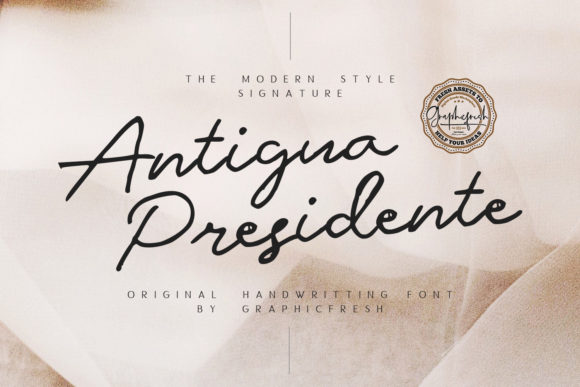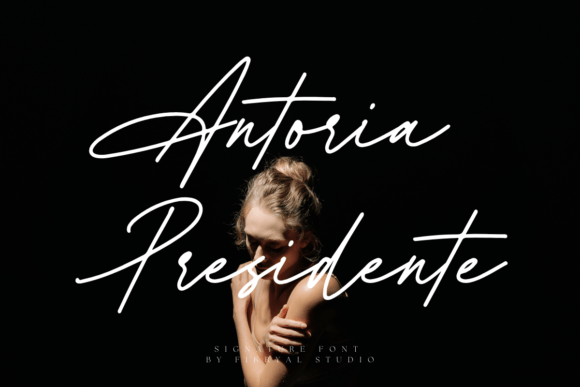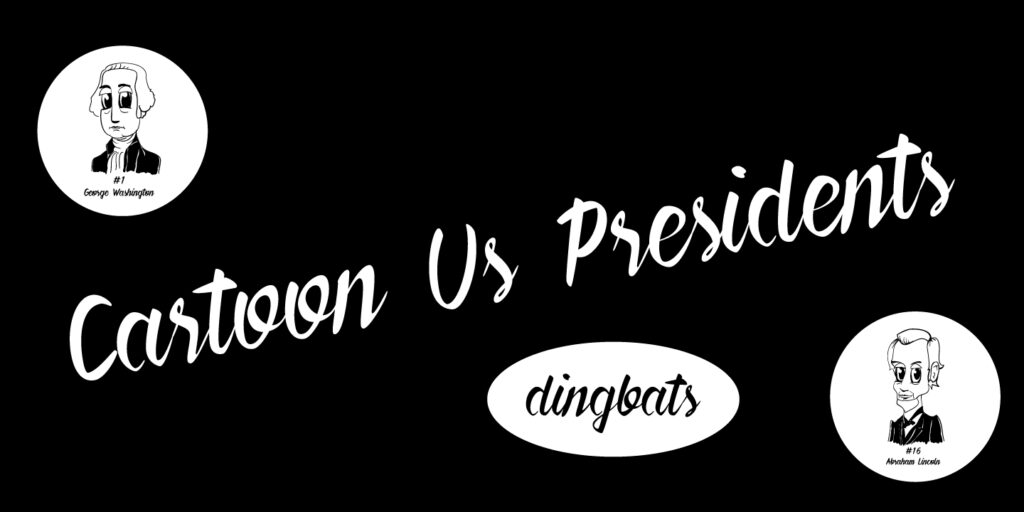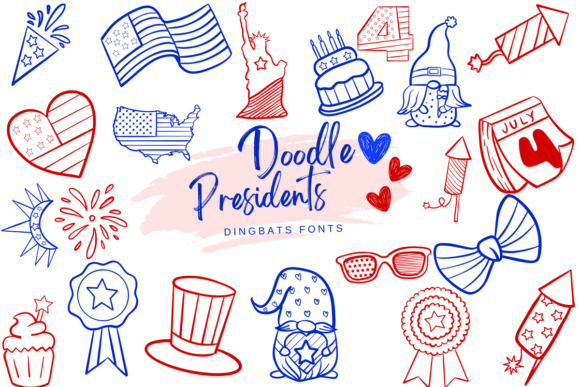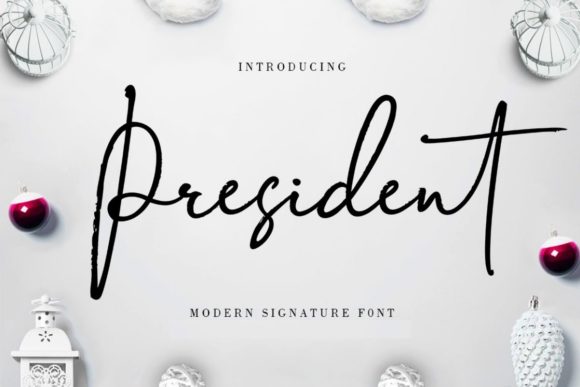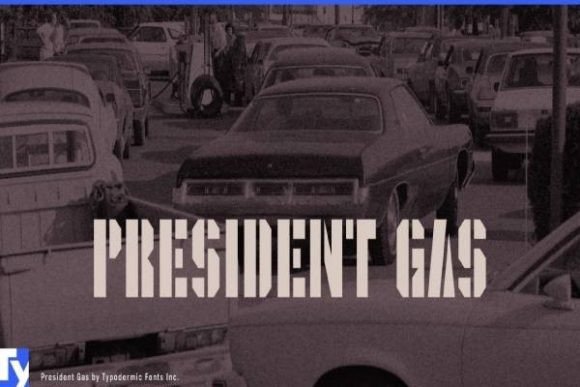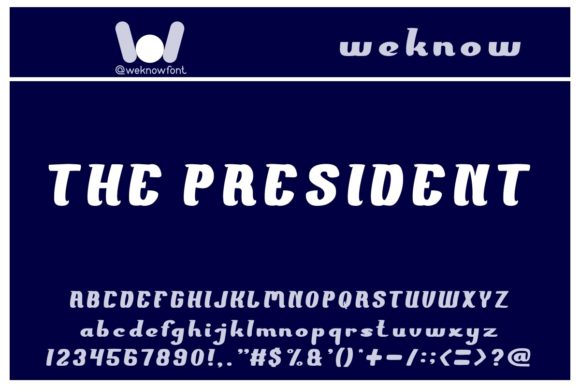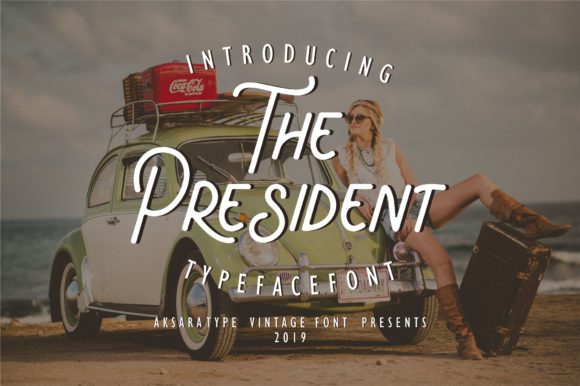
8 presidential fonts for official and business projects
Presidential fonts are used where authority, trust, and visual stability are important. Such representative fonts are suitable for government websites, corporate documents, legal materials, and high-level brand communications. Below are eight fonts that are considered benchmarks for official and business purposes.
Antigua Presidente Font
Antigua Presidente is a beautiful and cheerful handwritten font that exudes genuine charm. Let its delicate aesthetic inspire you to transform any design project into something truly remarkable!
Antoria Presidente Font
Antoria Presidente is a signature font that radiates elegance, sophistication, and class. It’s the ideal choice for any project that needs a touch of luxury, such as high-end fashion branding, marketing materials for luxury hotels, or premium product packaging. Designed to mimic a handwritten signature, the Antoria Presidente font features sweeping curves and delicate strokes that convey a sense of fluidity and movement. Its tall, elongated letters evoke vintage calligraphy, while its clean, modern lines lend a contemporary touch.
President Font
President is a script font that features a variable baseline and delicate lines, providing a classic yet modern touch. This font will add an elegant flair to your designs.
The President Font
The President is a vintage font that offers a clean and straightforward appearance. With excellent readability, it’s ideal for infusing a nostalgic charm into any design.
The President Font
The President is a playful and charming display font that brings a delightful touch to your designs. Incorporate this beautiful font into all your creative projects and see how it makes them truly shine!
Cartoon US Presidents Dingbats Font
This entertaining dingbats font features hand-drawn cartoons of all the US presidents up to the present day. The Cartoon US Presidents Dingbats font is a playful option that can be used for educational purposes or decorative projects.
President Gas Font
President Gas is a robust, octagonal stencil font that boasts an elegant and unique look, making it ideal for a variety of products or crafts.
Doodle Presidents Font
Doodle Presidents is a whimsical dingbat font that showcases adorable, hand-drawn icons inspired by U.S. presidents and symbols of the 4th of July. This font is ideal for infusing a patriotic flair into your projects, featuring fun doodles such as flags, fireworks, and historical figures. It’s perfect for cards, posters, and festive designs!
Presidential fonts and representative fonts play a key role in the visual communication of official and business projects. The right choice of font helps to reinforce a sense of authority, professionalism, and stability. The use of proven classic and neutral typefaces increases trust in a brand, document, or organization and makes the visual message more convincing.